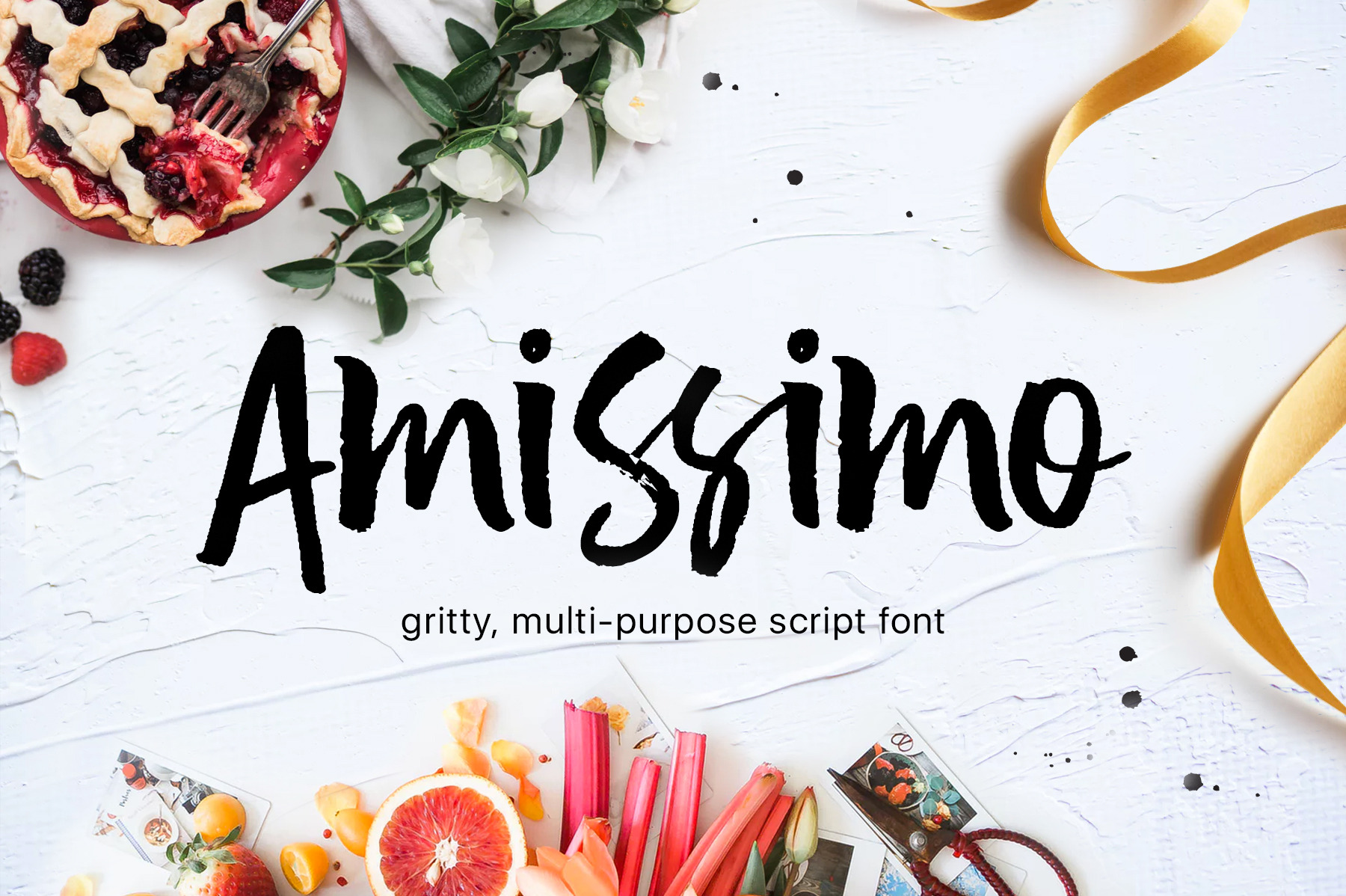
Amissimo Brush Font
Hello! I'm very happy to present my script font AMISSIMO! A trendy, hand-brushed font, looks gorgeous on logos, websites, invitations, greeting cards, magazines, business cards, packaging and more!